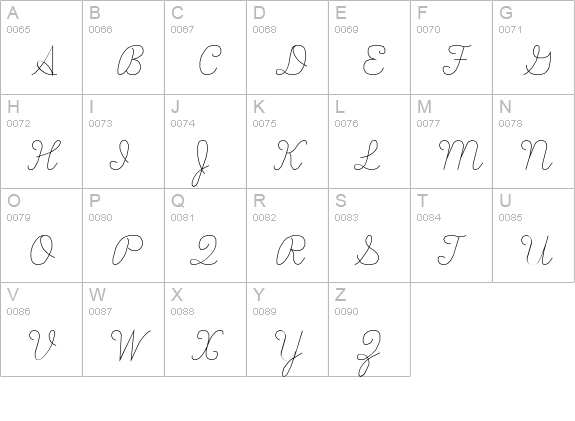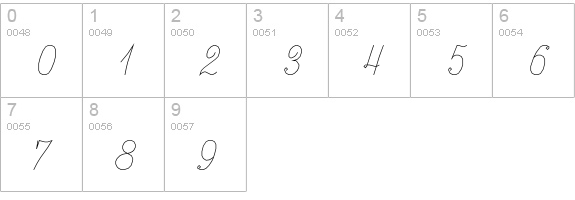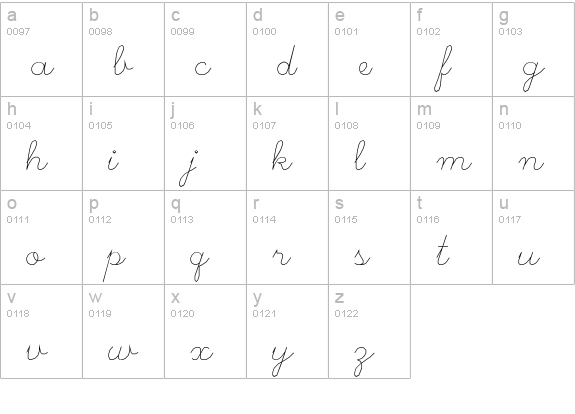
Introducing ScriptS, a captivating and versatile font that will surely add a touch of elegance and sophistication to any project. With its beautifully crafted script style, ScriptS effortlessly captures the essence of handwritten calligraphy, making it perfect for a wide range of design purposes. What sets ScriptS apart is not only its stunning aesthetics, but also the fact that it is available to download for free at FontsMarket.com. Yes, you heard it right - this exceptional font is freely accessible, allowing designers, creatives, and enthusiasts alike to enjoy its beauty without any restrictions. Whether you're designing wedding invitations, logos, branding materials, or even social media posts, ScriptS will easily elevate your designs to new heights. Its graceful curves, exquisite letterforms, and impeccable details make it a truly versatile typeface that can adapt to various themes and styles. Crafted with meticulous attention to detail, ScriptS ensures legibility and readability, even at smaller sizes, making it suitable for both print and digital projects. Its seamless flow and natural rhythm create a sense of effortless elegance, adding a touch of sophistication to any visual composition. Imagine the possibilities when you have ScriptS at your fingertips. From romantic and whimsical designs to high-end and luxurious aesthetics, this font effortlessly brings your vision to life. Its versatility knows no bounds, making it a valuable asset in any designer's toolbox. So why wait? Don't miss out on the opportunity to enhance your projects with the timeless allure of ScriptS. Download it for free today at FontsMarket.com and experience the power of this extraordinary font. Let ScriptS be the key to unlocking your creative potential and achieving truly stunning designs.